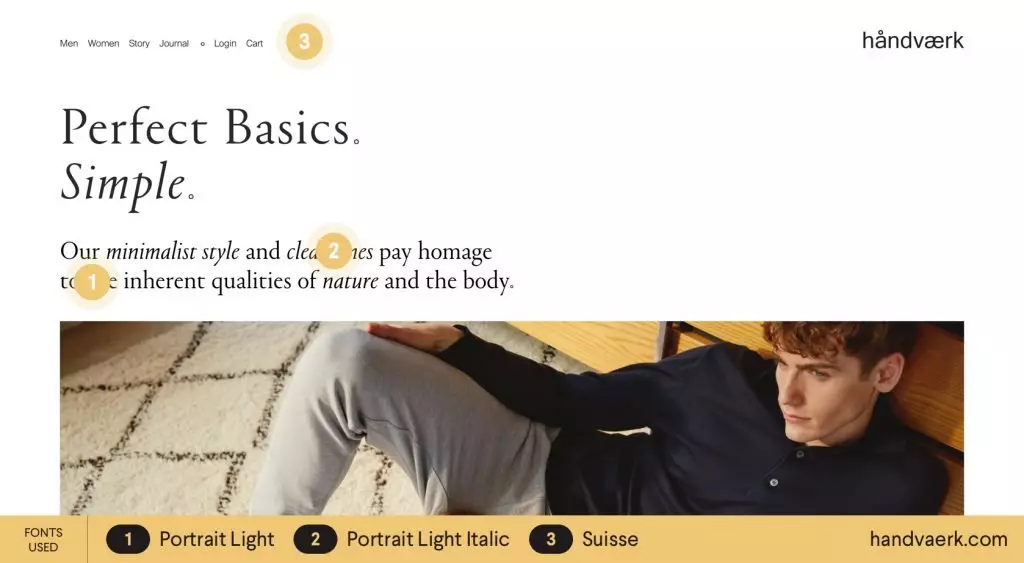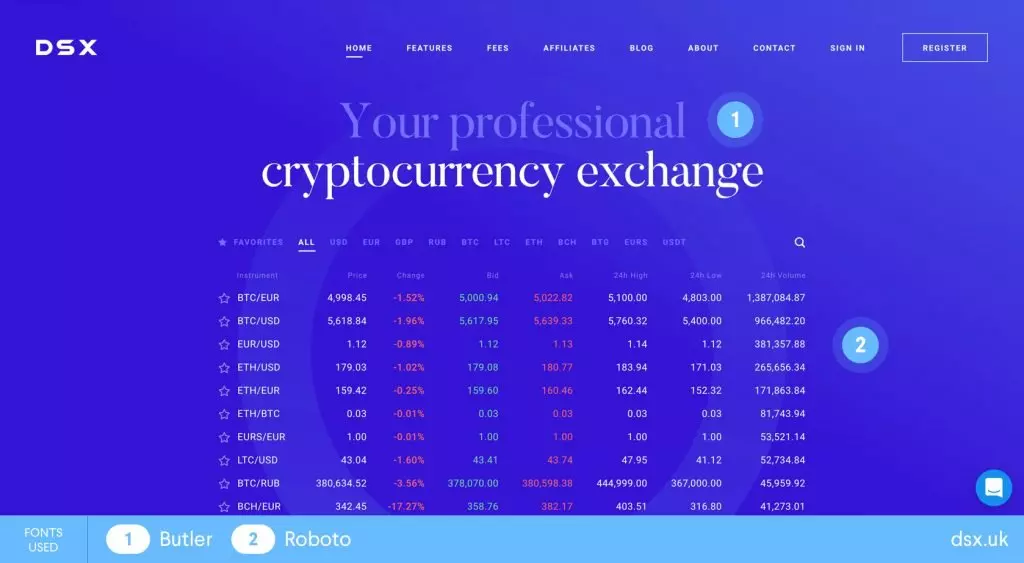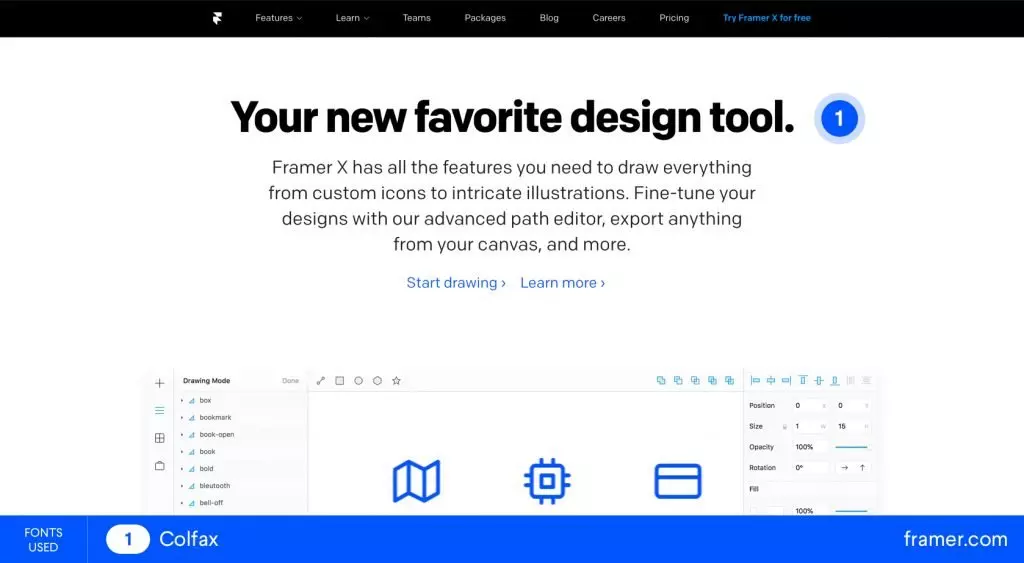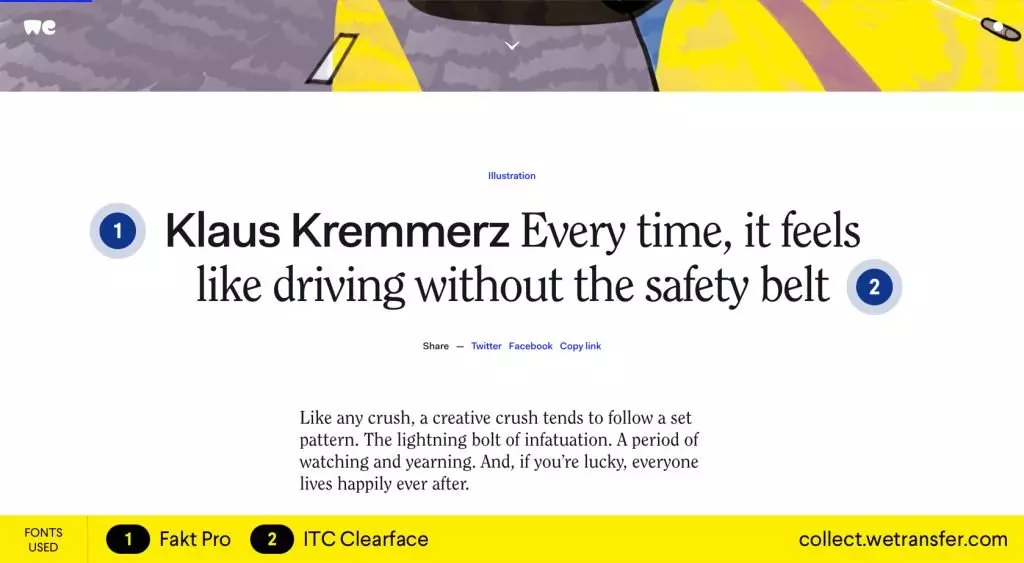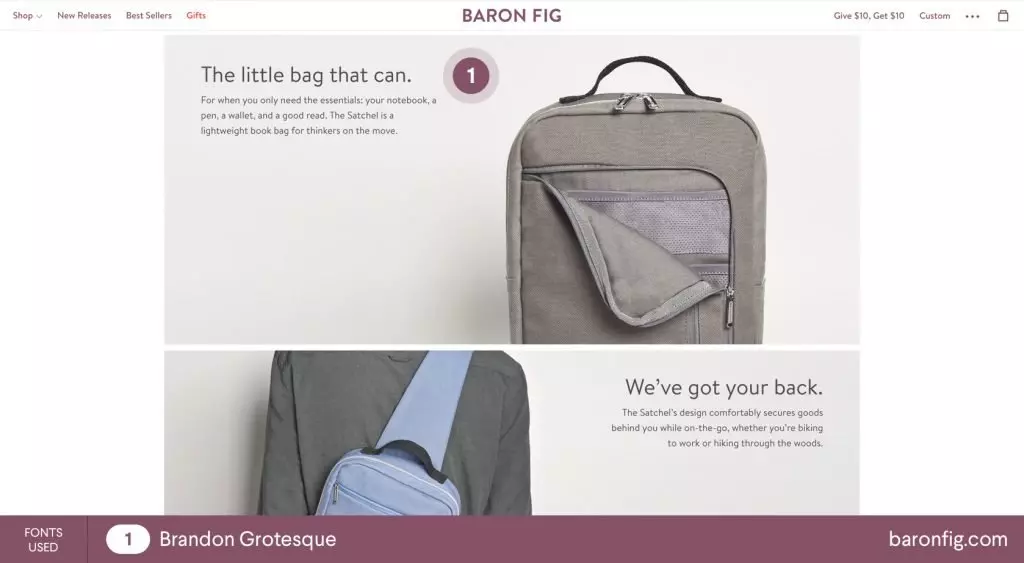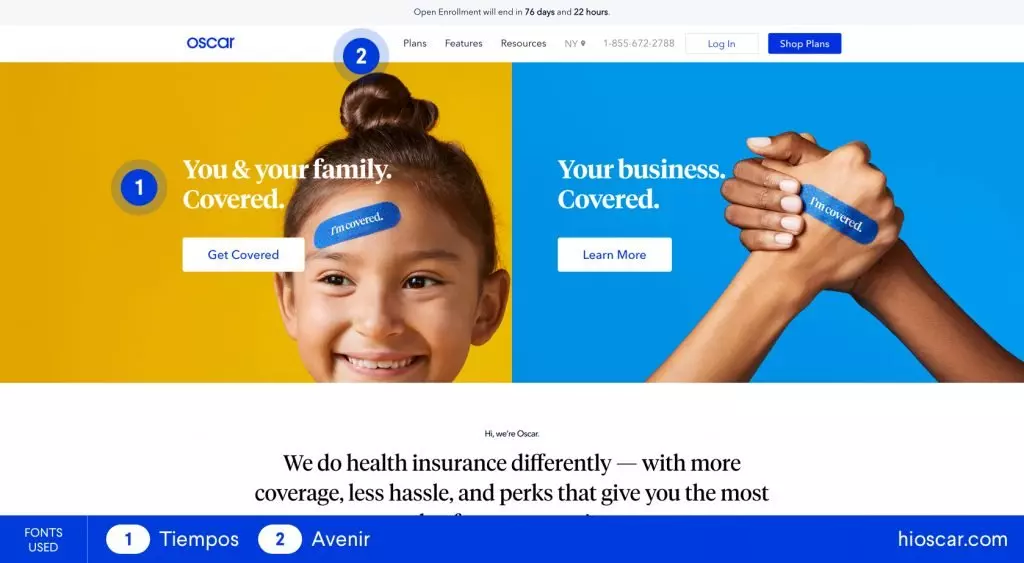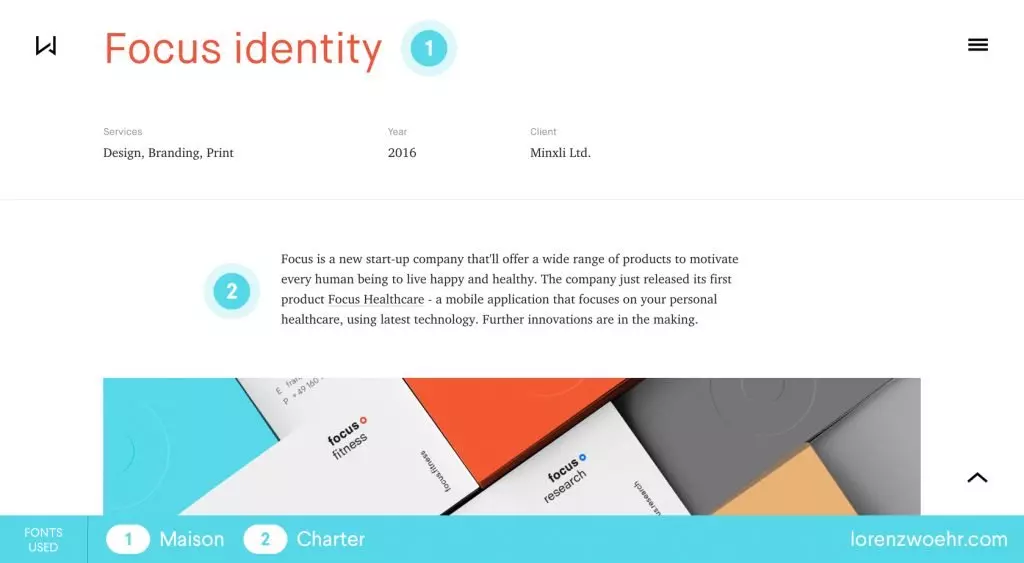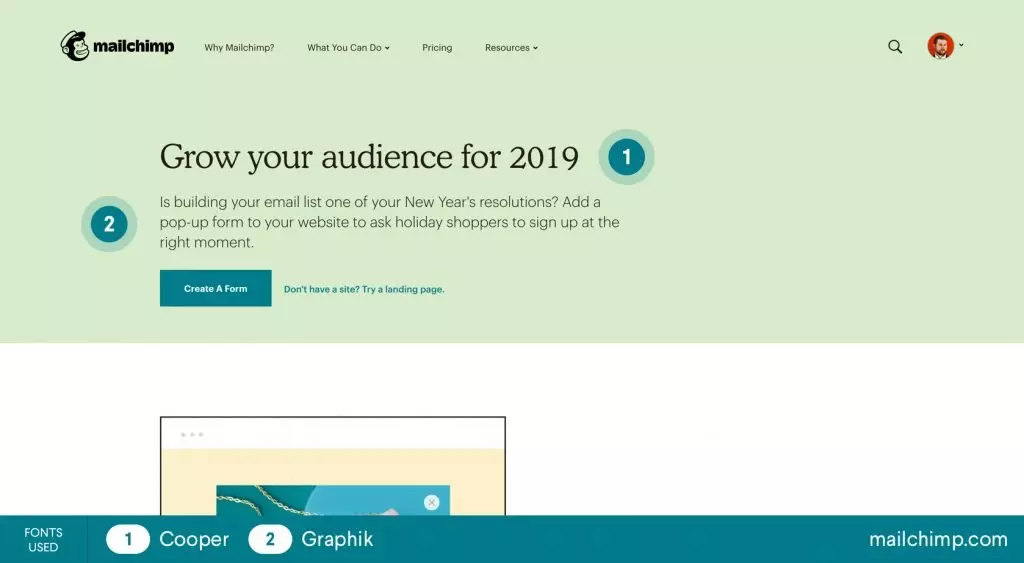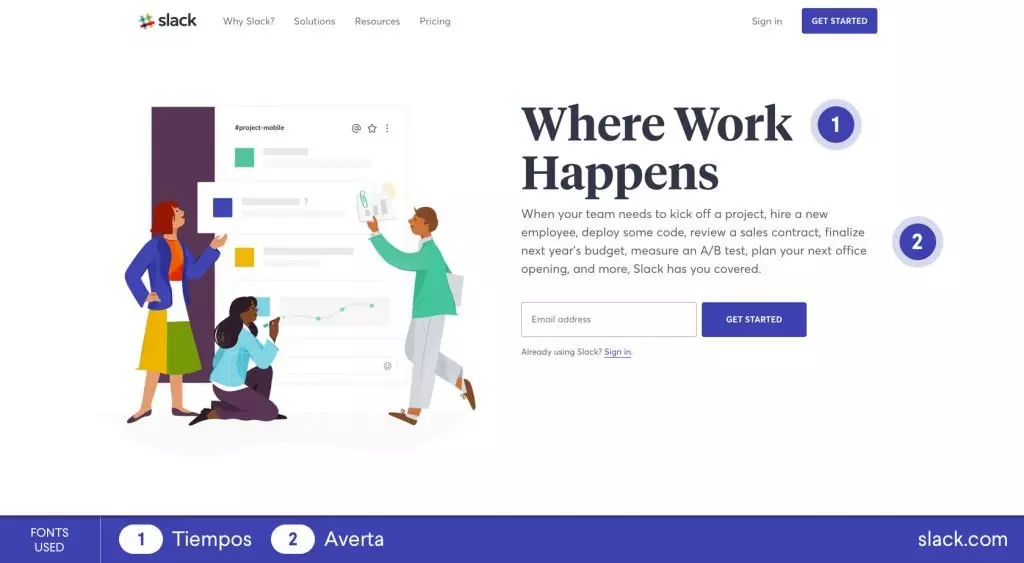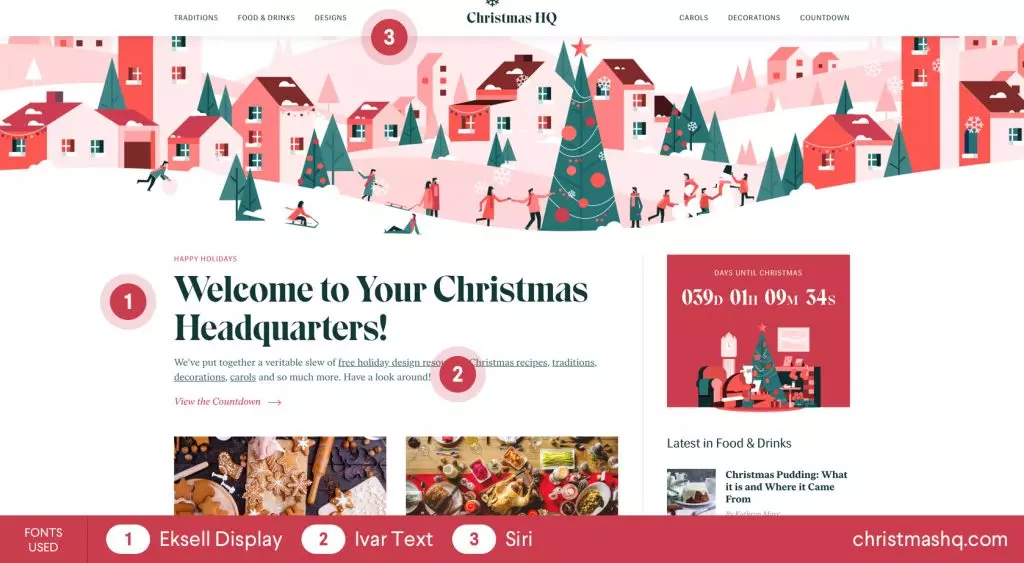
“That’s easy! Your sales are low because you use the Roboto font in the design ”, he exclaimed. And a lonely tear rolled down my cheek. I thought, “So, that’s it! Roboto ruined my business. A pigeon cannot be wrong. ”
Perhaps, the pigeon is right and I should choose a cooler font for my website to make the sales rocket. It’s even better if I put together a collection of perfect font pairings in this article and tell the others about them.
1. Portrait + Graphik
font pairing for UI designersFont pair: 1. Graphik | 2. Portrait
You’ve probably noticed how Graphik began to gain pace in early 2018. The popularity of this font continues to grow, especially on the web. It is perfectly combined with the Portrait font, from the same Commercial Type studio.
In general, it’s amazing to explore the trends of using fonts in web design. When I started designing, many websites were done using the font ITC Officina Sans. Then they switched to Proxima Nova. A few years later, Futura turned up and was in trend for a long time (given that in the past several decades, this is not the first moment of glory for this font). Then everyone started using Circular and now we admire Graphik. I loved everything using different cute fonts.
2. Tiempos + Averta
font pairing for UI designersFont pair: 1. Tiempos | 2. Averta
I’m not sure who set the fashion to use Tiempos for headings and titles. It seems to me these were the guys from Slack. At least it was after their redesign that it started to be used everywhere. Even my mom adds it to the jam when she makes home food supplies.
Used in titles, Tiempos looks very cool and catchy. Especially next to the bright illustrations. This font is perfectly combined with Averta. Although almost any sans font such as Graphik, Circular or my favorite Larsseit could be used in its place.
3. Domaine + Founders Grotesk
font pairing for UI designersFont pair: 1. Domaine | 2. Founders Grotesk
Thanks to the designers from Pantheon, I first stumbled upon the Domaine font. They use it for headlines and combine with Founders Grotesk. Both fonts are designed by Klim Type Foundry and look good in combination with each other.
4. Colfax
font pairing for UI designersFont: 1. Colfax
Colfax fits well with … Colfax? Thanks for this to the Framer website. Now you know about it. The combination of Colfax Bold and Regular is a goody-goody.
5. ITC Grouch + Fakt Pro
font pairing for UI designersFont pair: 1. ITC Grouch | 2. Fakt Pro
WeCollect uses ITC Grouch for headlines and combines it with Fakt Pro. The fonts work perfectly together. Especially, when the headings are large and contrast with the size of the body text.
6. Fakt Pro + ITC Clearface
font pairing for UI designersFont pair: 1. Fakt Pro | 2. ITC Clearface
When designers have already seen and tried everything, they switch to hard drugs. Circular is past the point. Avenir is boring. Futura – well, better wish it to your grandmother. You need something more sophisticated. Something that being used on your website will make the heavens opened and a voice will shout from there, “This is a real designer I can feel proud of”. And the children meeting you on the street would point their finger at you and shout “Look, the designer is coming!”. Well, you get the idea.
Feel like that? Then ITC Clearface is what you were looking for. The guys from WeTransfer perfectly combine it with Fakt Pro. It looks cool!
I’ve been following WeTransfer for a long time. Especially for their sub-project WePresent. It can be viewed for hours. The guys who do the design there, know their business.